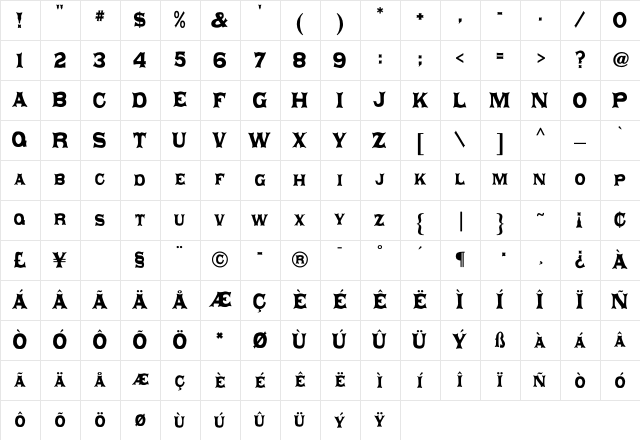
LHF Amarillo is a composed and adaptable typeface that performs quietly and consistently across a wide range of design contexts.
Who designed the LHF Amarillo Regular font?
This font was published by Chuck Davis for Letterhead Fonts. Check the technical specs section for copyright and designer details.